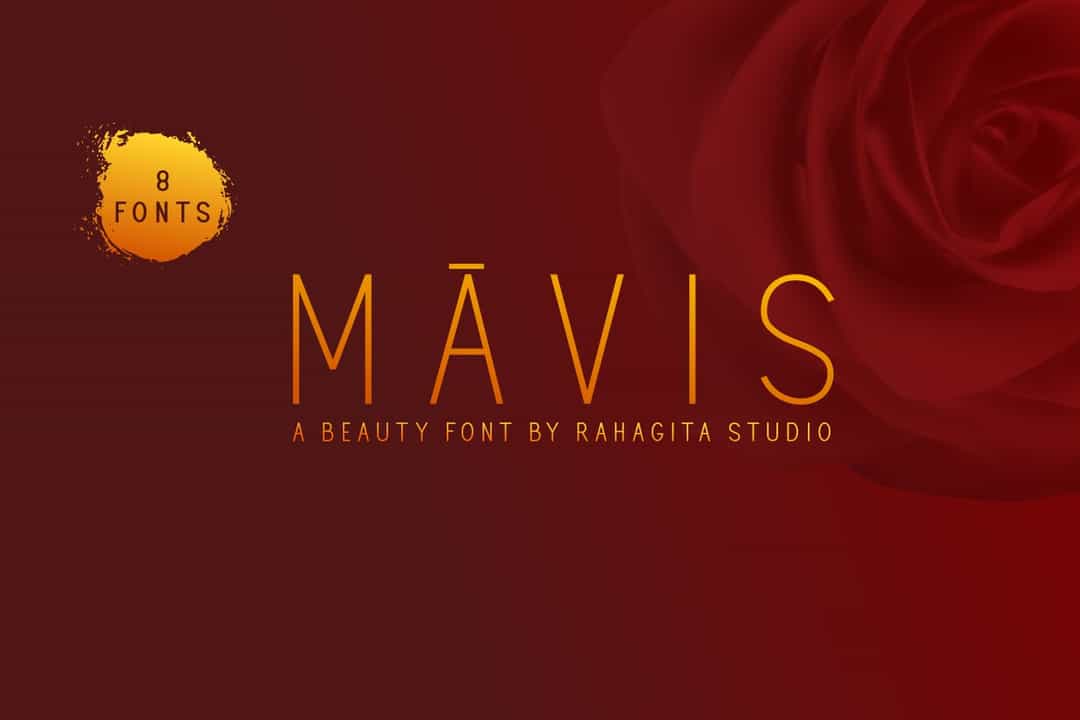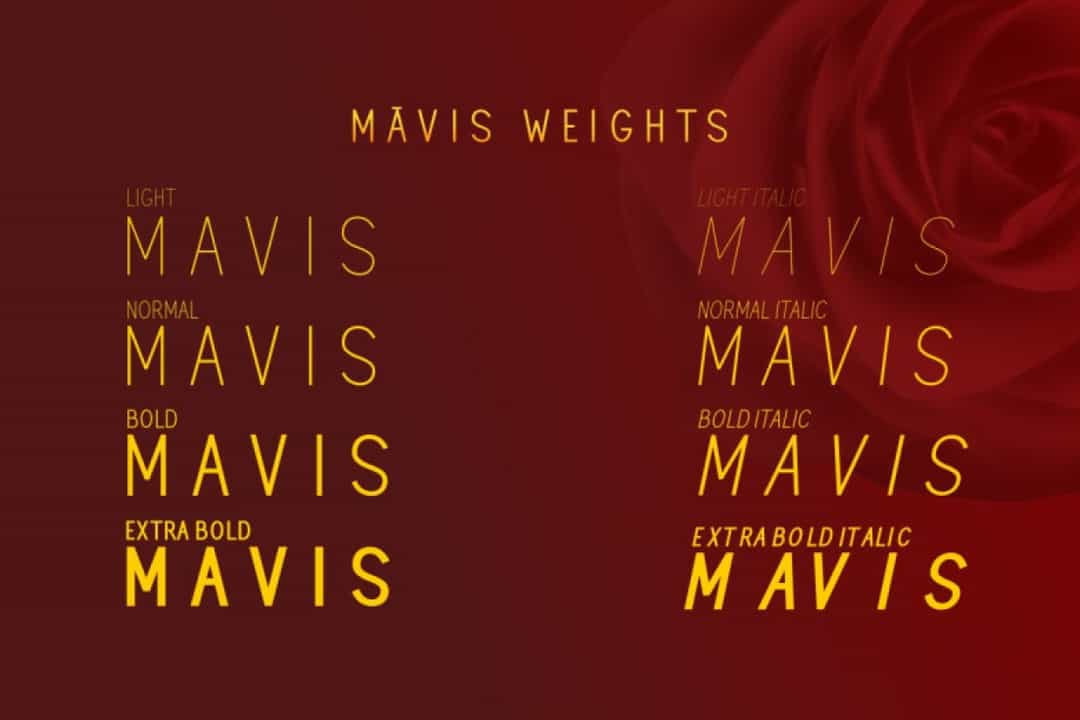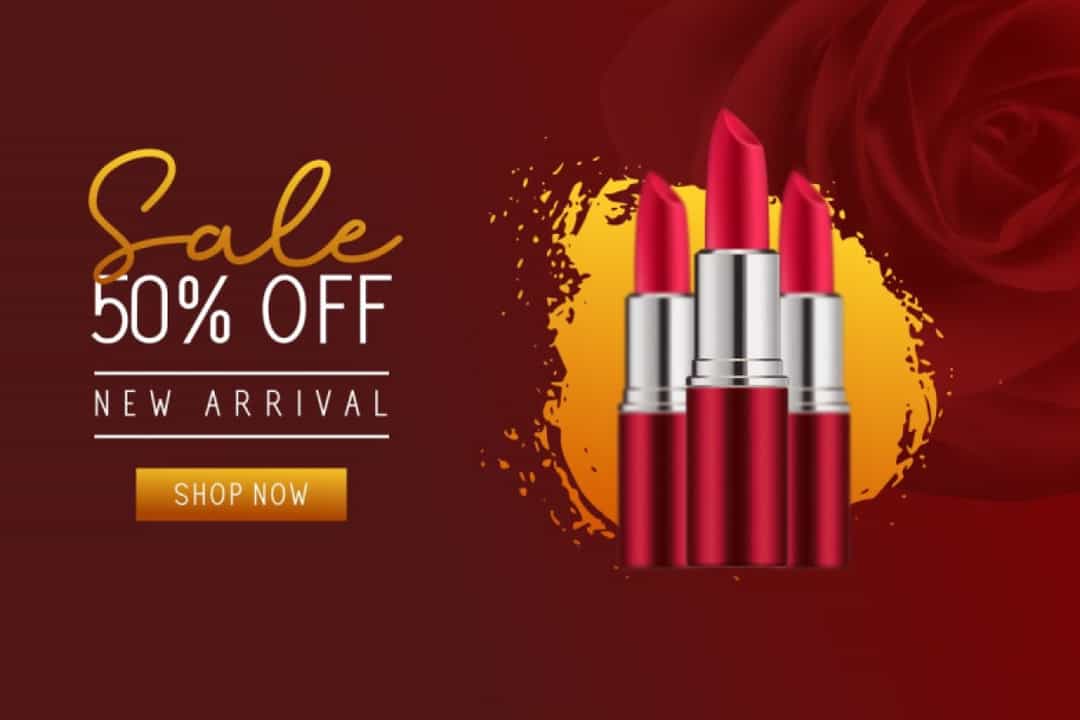
Mavis is an geometric sans serif font family that the ability to maintain a rational design in each type. By using the sharpness of your eyes remains clear, so that balance is preserved throughout each design. This will result in the clean, neat and perfect look.